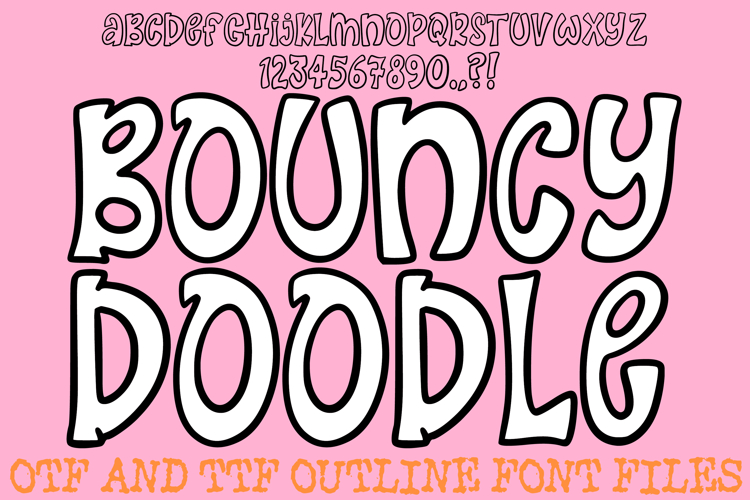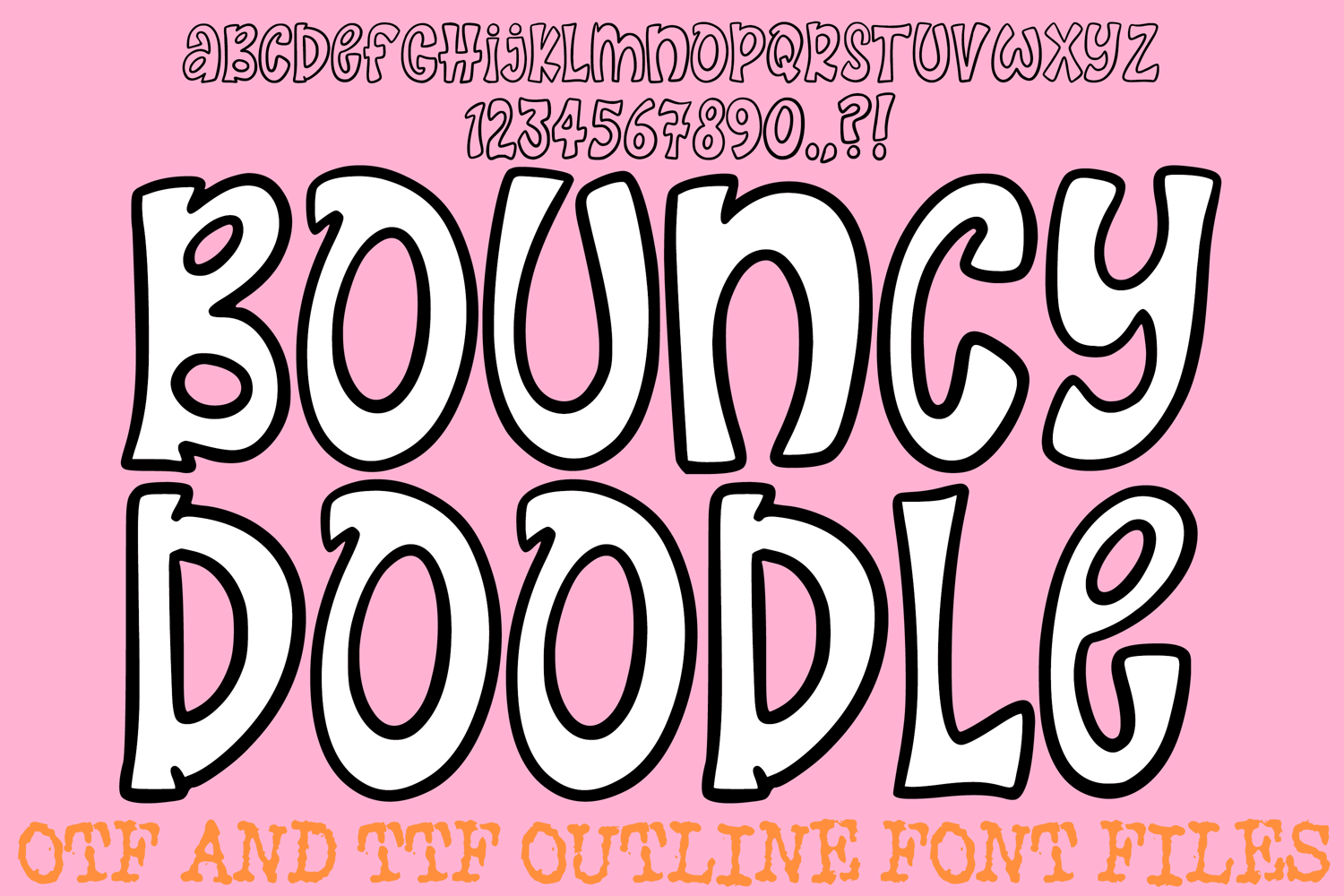
Bouncy Doodle Font Hand Drawn Cartoon Comic Lettering ABC
Add a touch of whimsical movement to your work with the Bouncy Doodle Font! This energetic display typeface features tall, elongated letterforms with playful "elastic" silhouettes and unique pointed flourishes that give every word a handcrafted personality. It is the perfect choice for whimsical children's book titles, funky apparel designs, creative classroom materials, and eye-catching social media headers.
The thin, clean outlines and exaggerated, bouncy proportions provide a professional, artisan-crafted look that feels both modern and nostalgic. Whether you are designing a logo for a boutique, crafting custom stickers, or working on a fun poster, the Bouncy Doodle Font delivers a joyful, "sketchbook" aesthetic that stands out.
Why Your Designs Will Stand Out
Elongated & Energetic Proportions: The tall, stretched silhouettes create an instant sense of whimsy and movement.
Clean Thin Outlines: Perfect for layered designs, digital overlays, and high-quality printing.